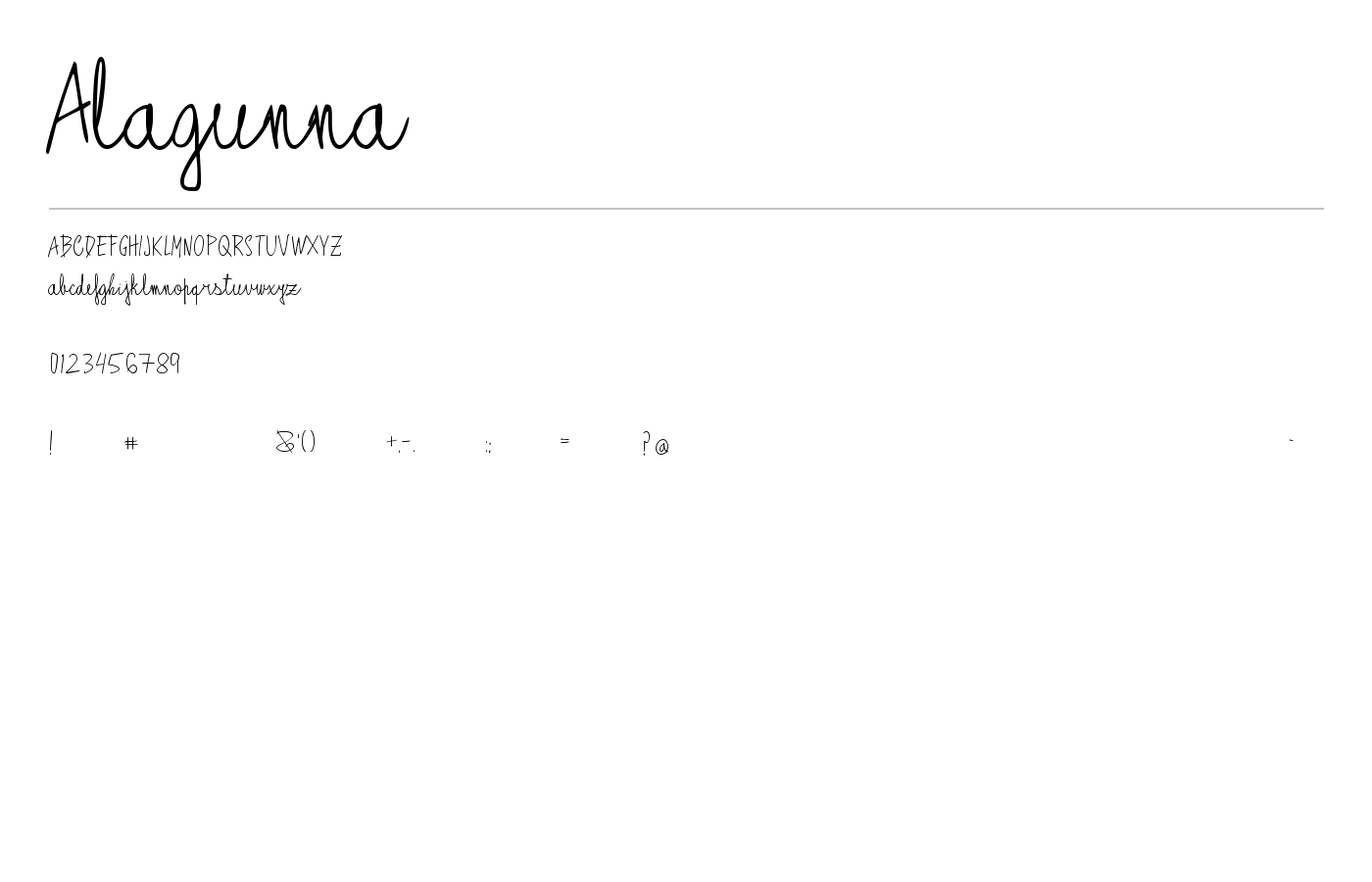
Alagunna is a delicate and casual handwritten script font with a light weight and narrow width, giving it an airy and personal feel. Its tall x-height and slightly playful yet smooth letterforms make it ideal for adding a friendly, approachable touch to invitations, logos, social media graphics, and creative projects where a natural, hand-drawn style is desired. This font works well in contexts that benefit from a warm, informal, and artistic voice.
Alagunna Font
About Alagunna Font